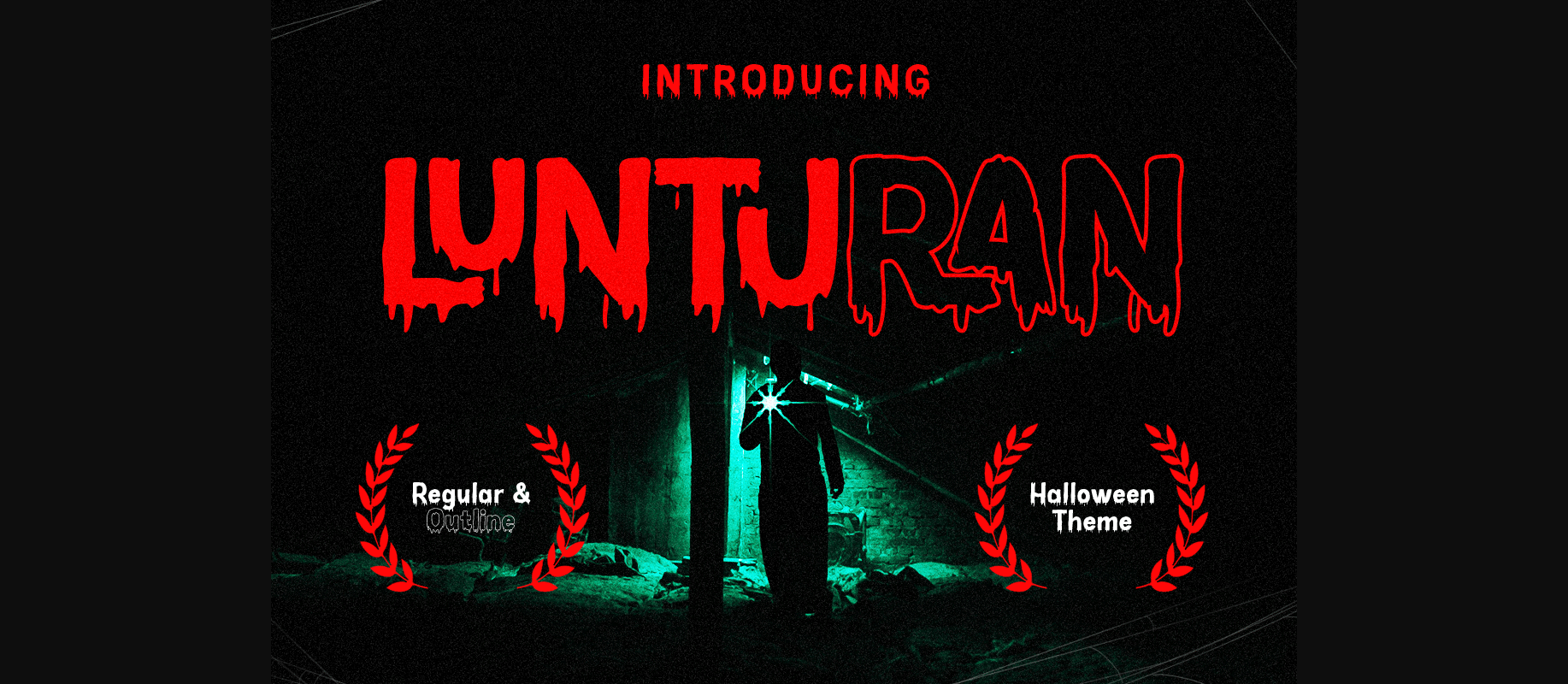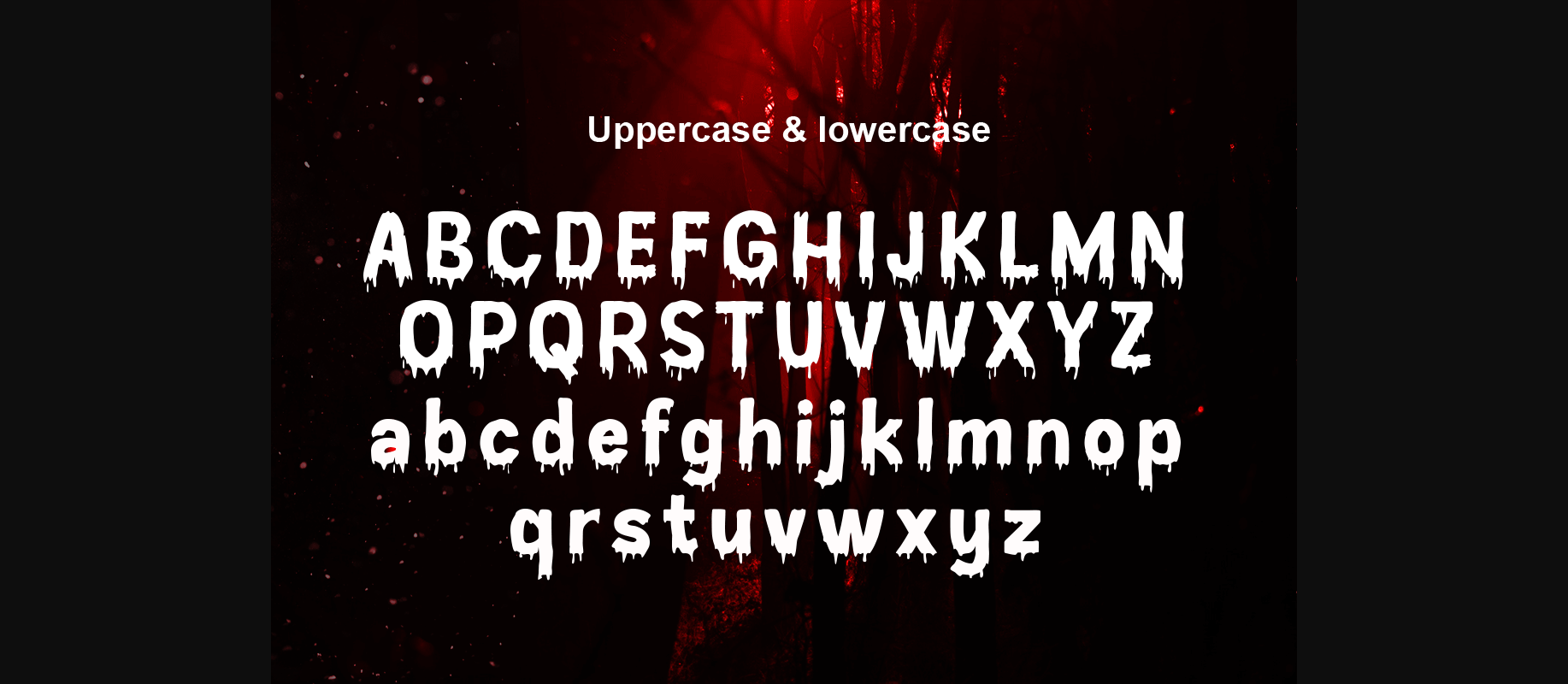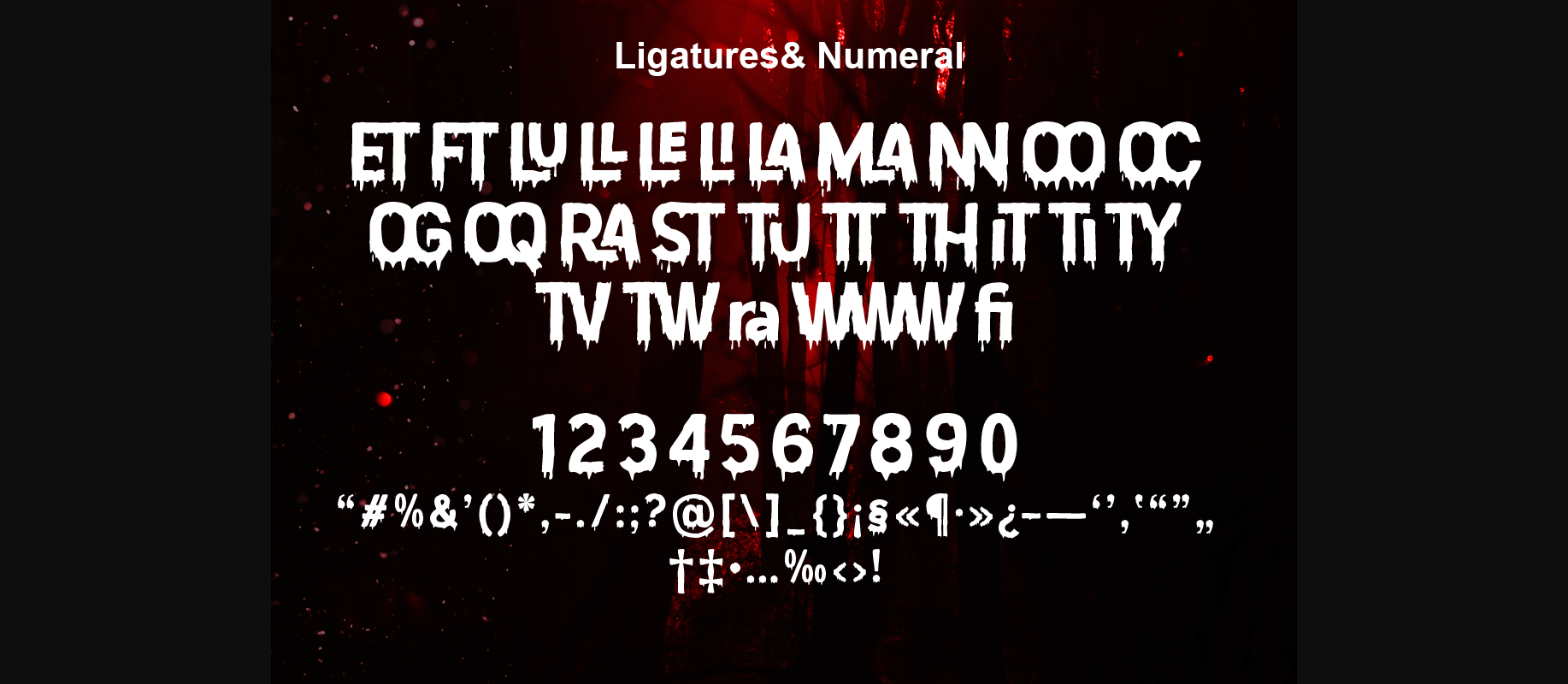
About Lunturan Font
Lunturan is a decorative font with a blood theme or something melted. Lunturan can be used for all kinds of scary or melting-themed purposes. This font is designed to be a true favorite, it has the potential to take any of your creative ideas to the highest level! This font is PUA encoded, which means you can access all of the glyphs and swashes with ease!